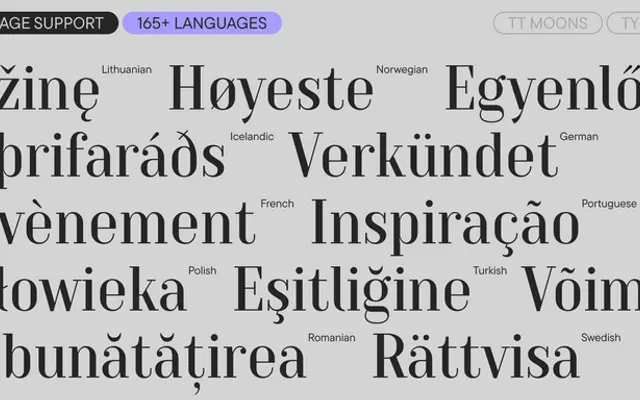
TT Moons
TypeType · Nadyr Rakhimov, Anna Kondrashova, Ravid Balaliev, Elizabeth Ostrovskaya · 2016
A narrow, high-contrast modern serif from TypeType, originally released in 2016 and updated in 2025 with variable font support and extended language coverage.
Five weights from Thin to Black, each with a matching italic, sit within narrow proportions that suit magazine columns, book text and newspaper layouts. The high stroke contrast places it firmly in the Didone lineage, though contemporary detailing keeps it from feeling historicist. The 2025 update adds two variable fonts along the weight axis, expands the glyph set to 500 characters per style, and adds support for 165 languages including Cyrillic.
TT Moons belongs to the Didone or glyptal modern tradition, characterised by its high stroke contrast, narrow proportions, and hairline serifs typical of that genre.